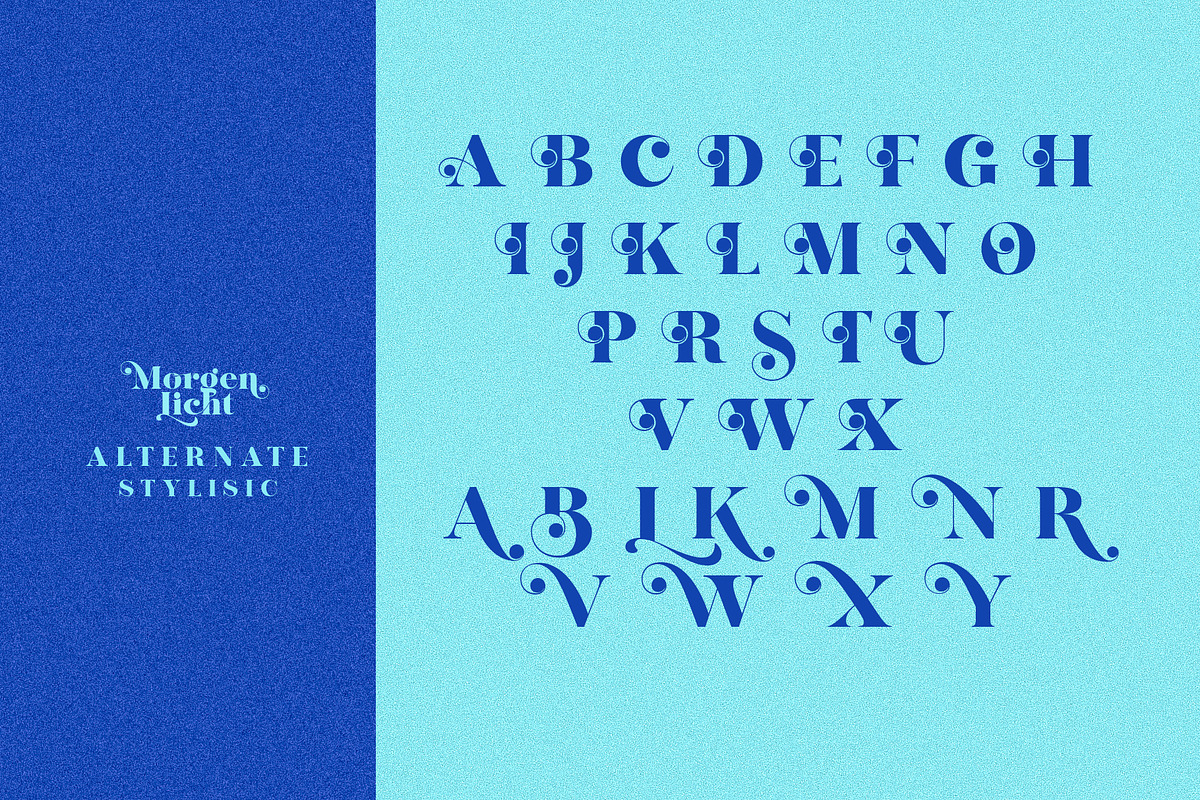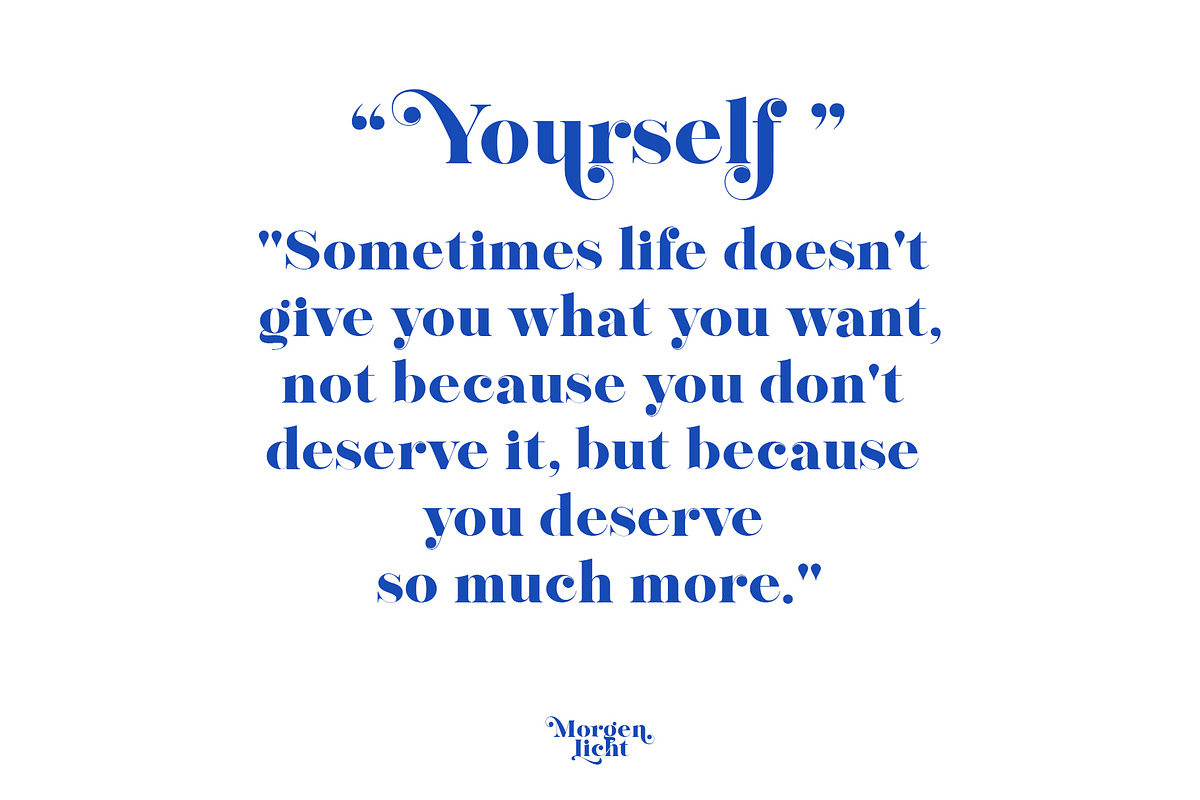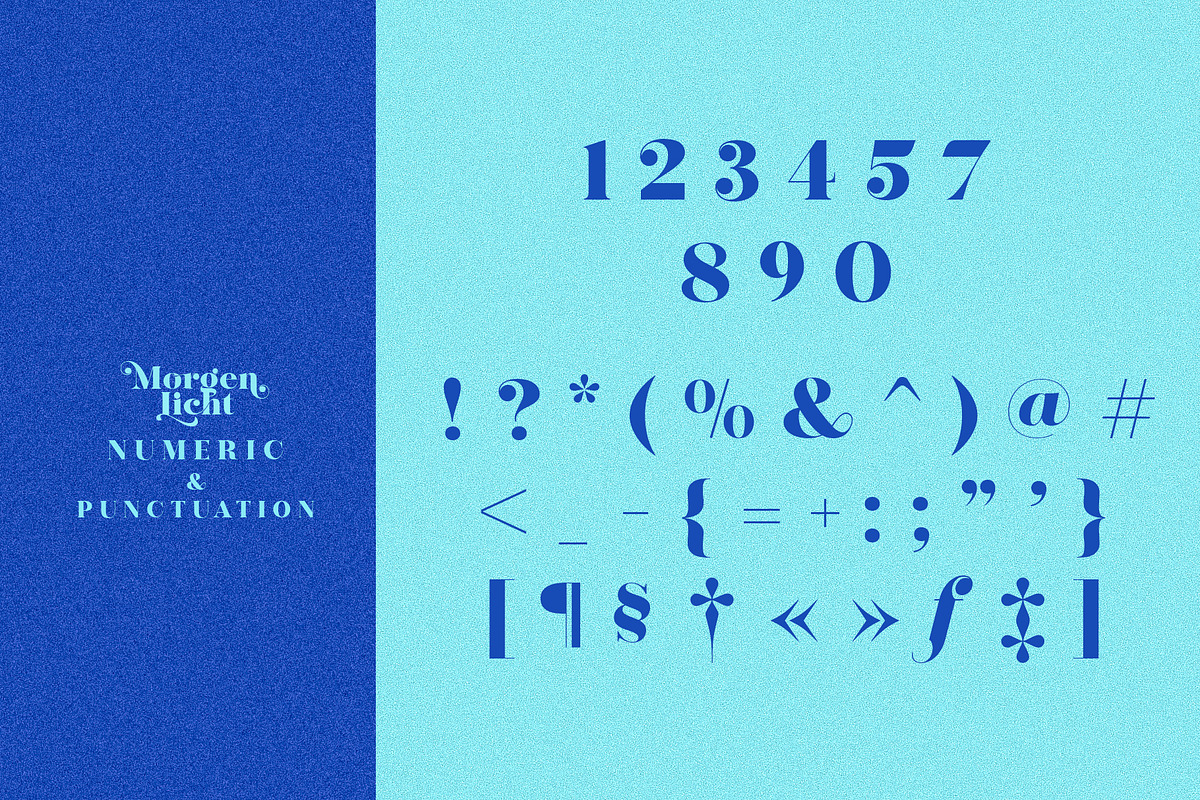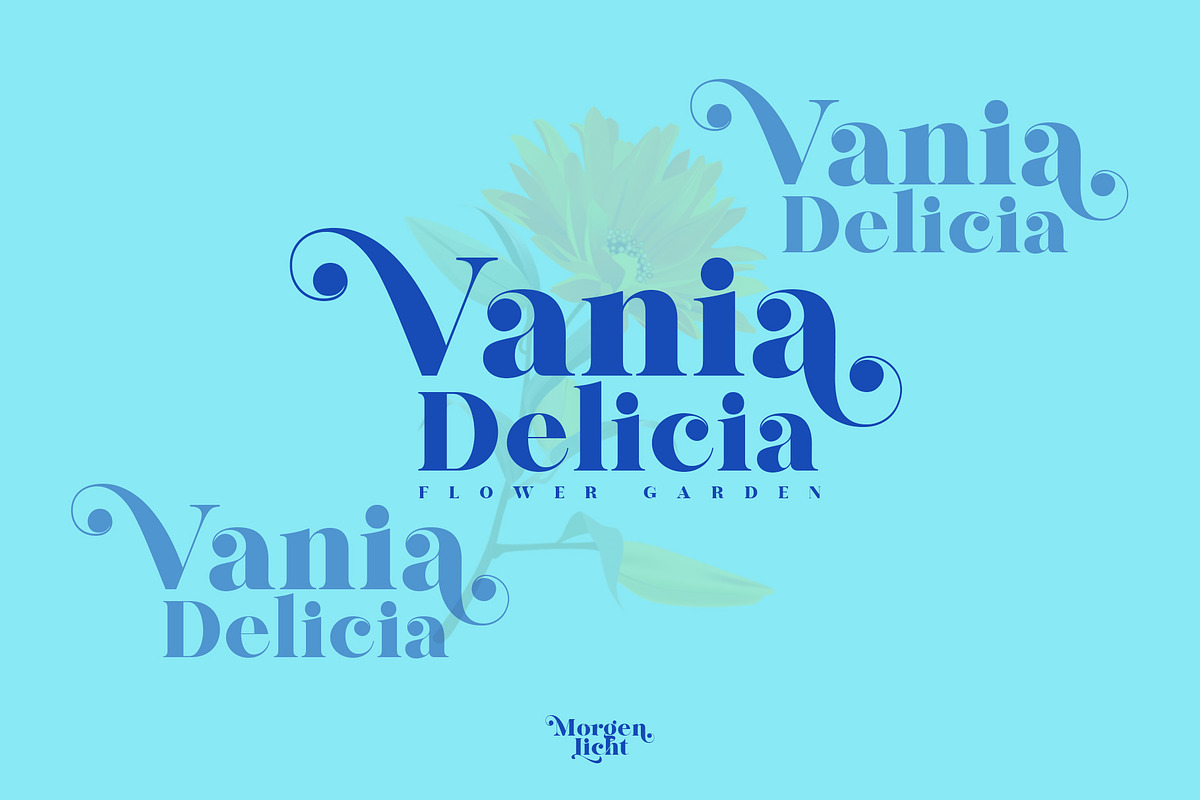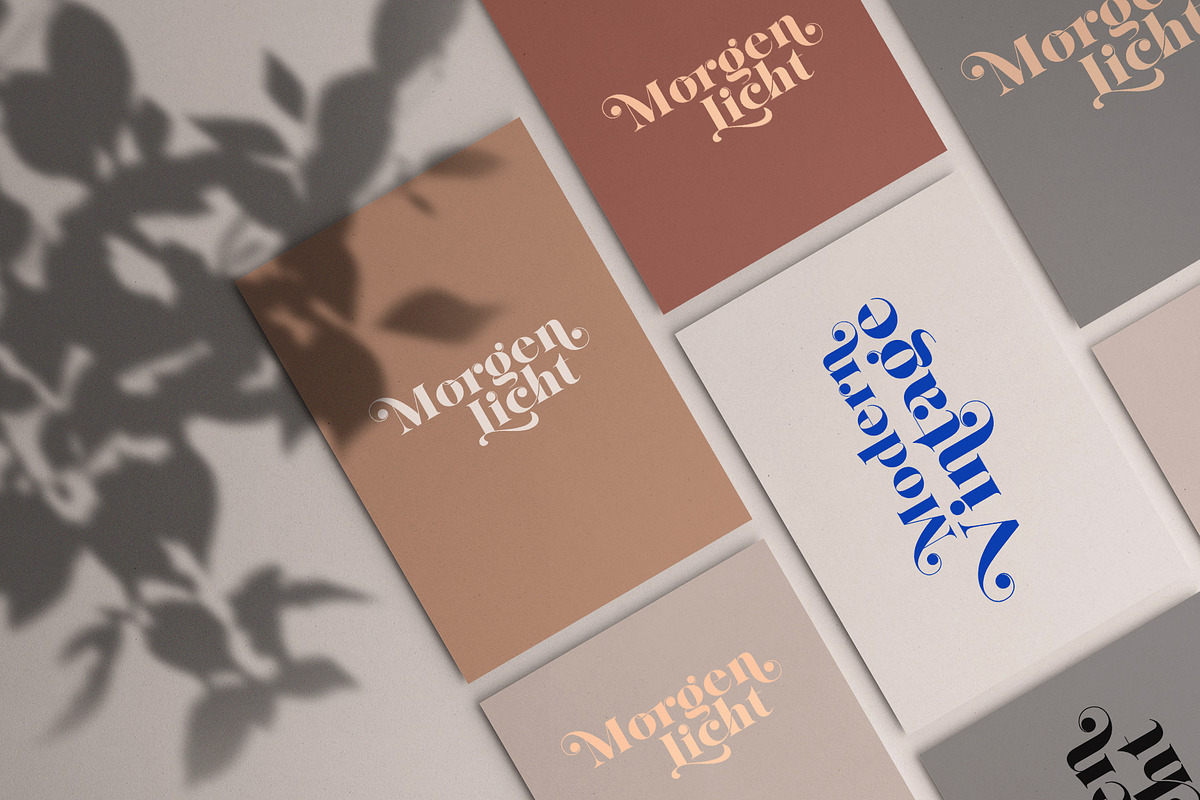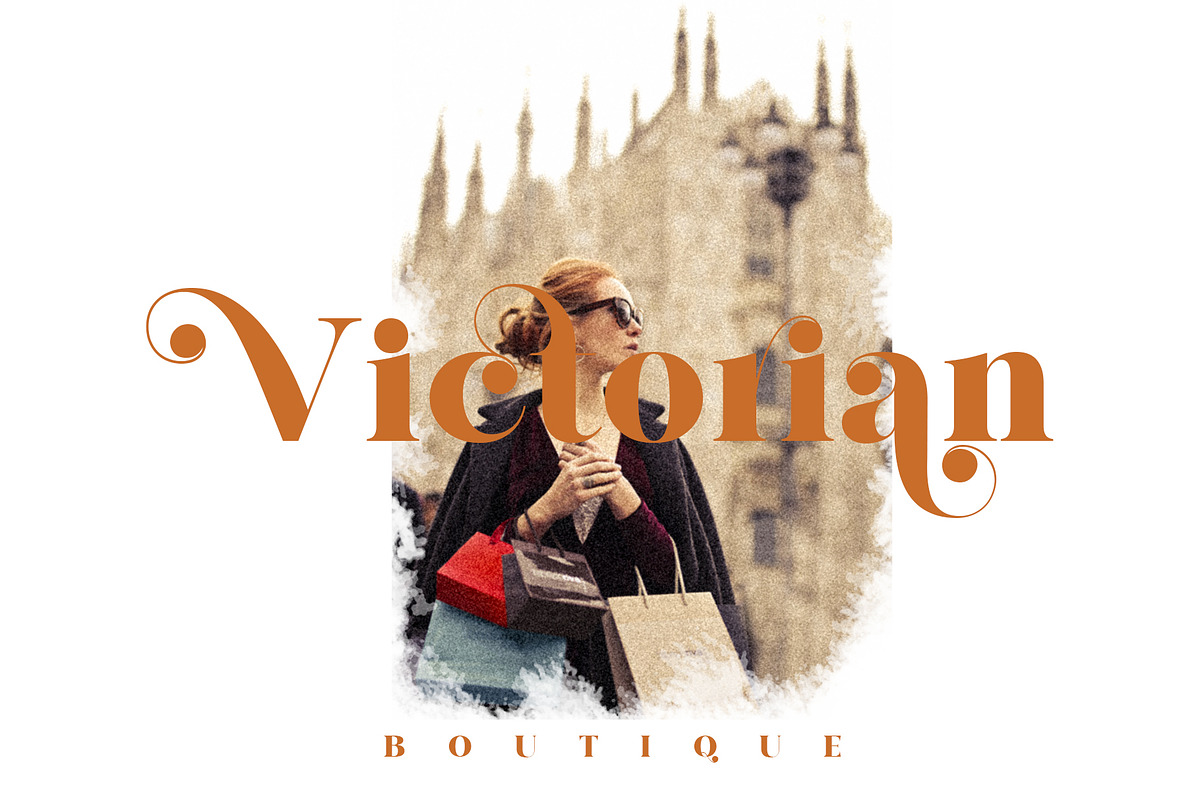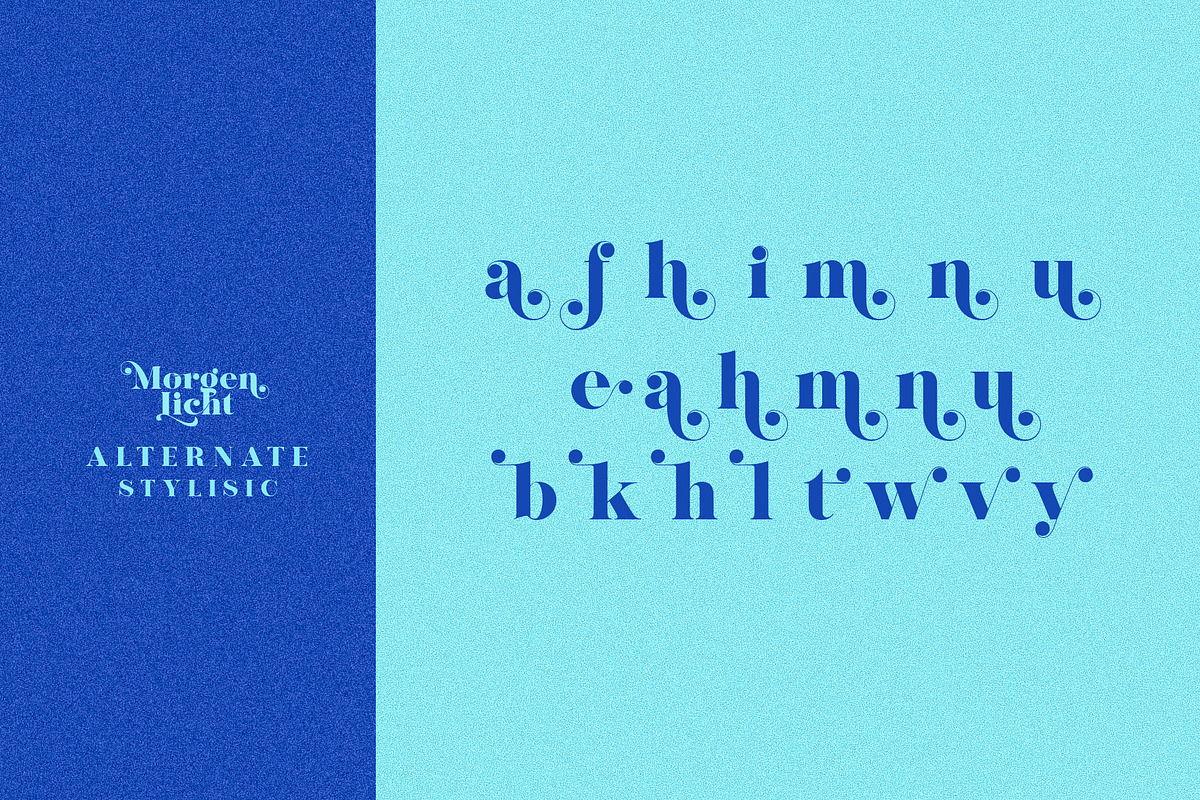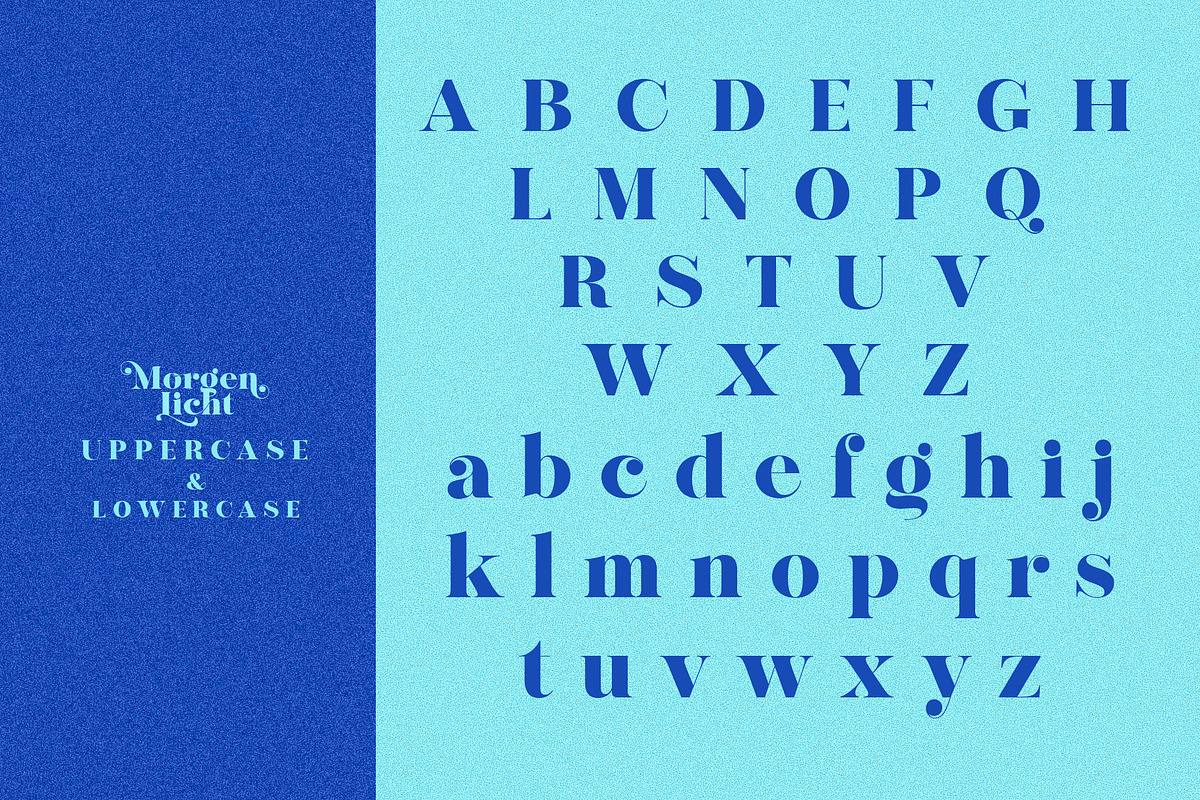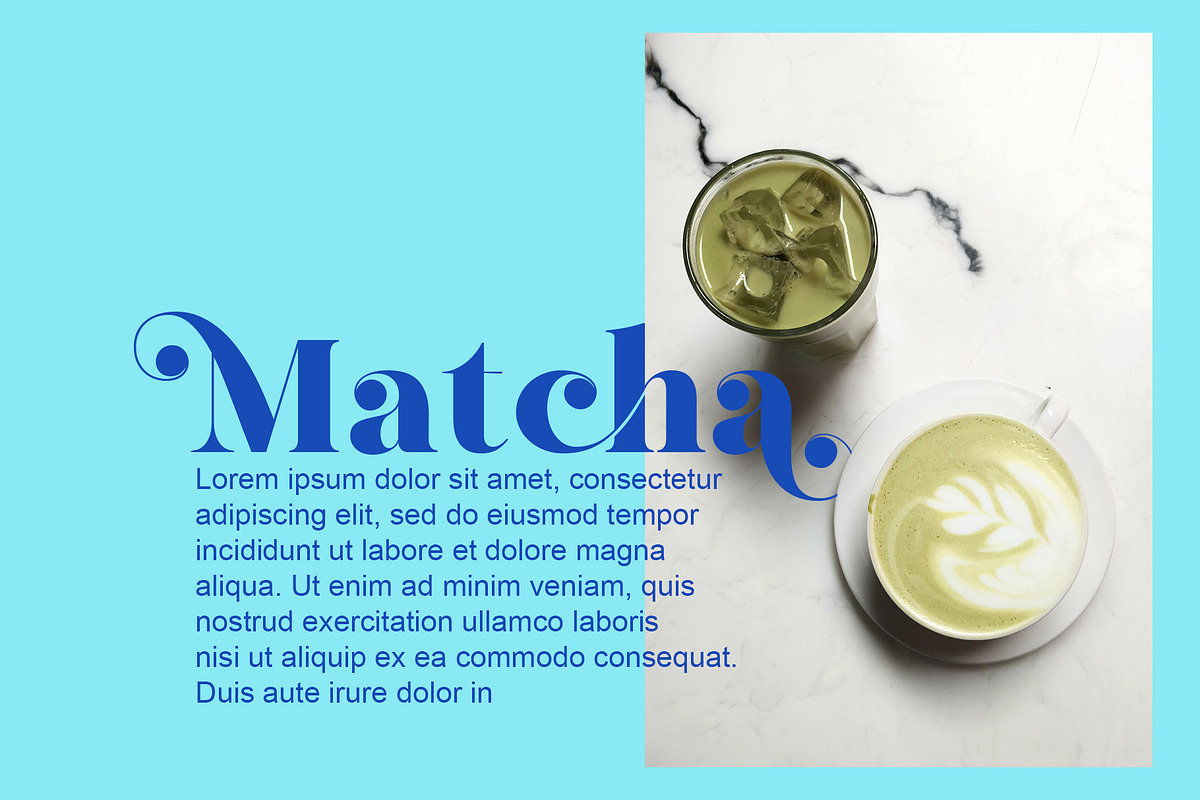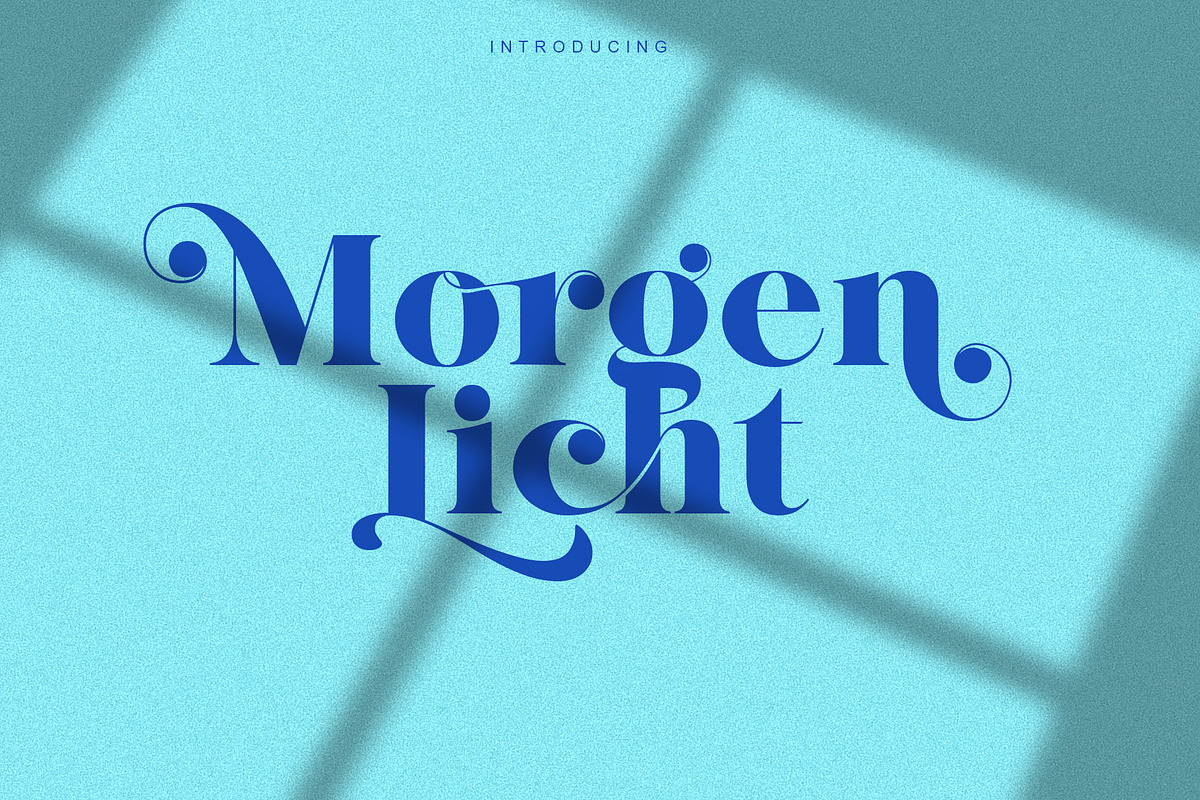
Morgenlicht
morgenlicht is beauty serif display.This font is suitable for invitation cards, decorations, clothing products, greeting cards and others. This font also has uppercase, lowercase, numeric, punctuation and multilingual. and there are several ligature and stylistic alternate.